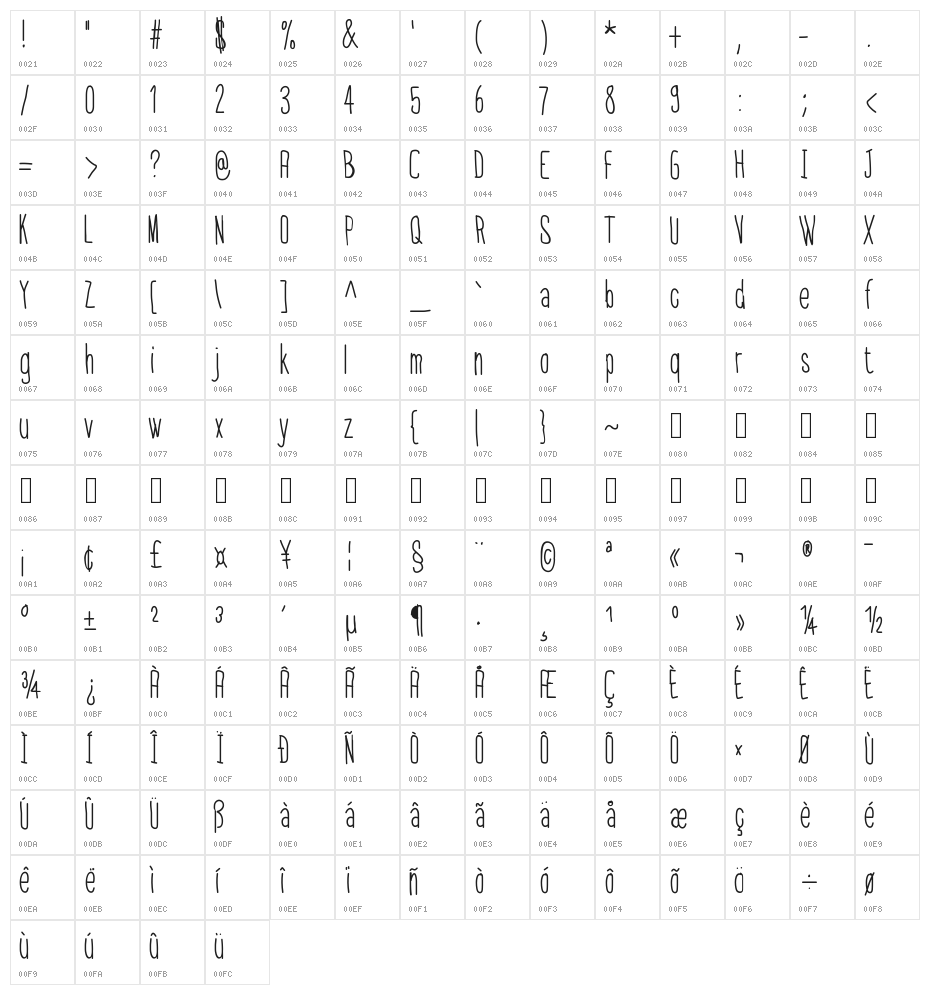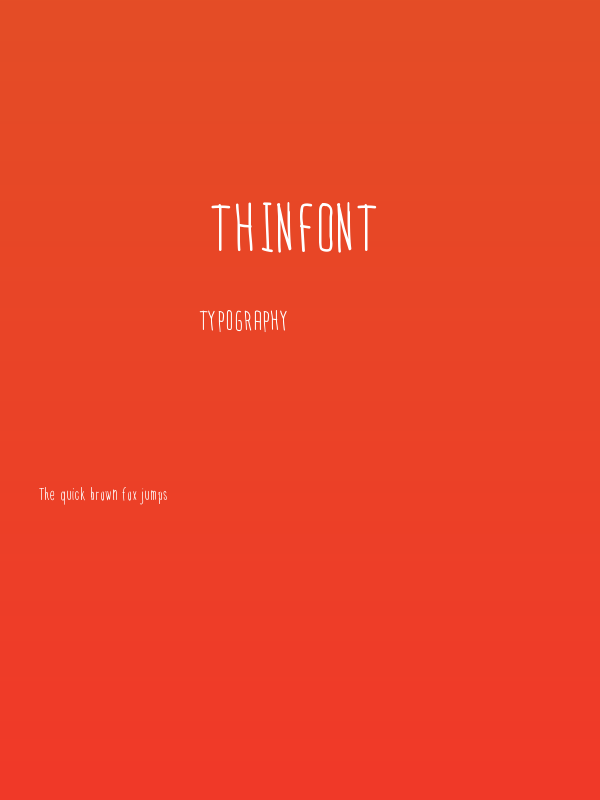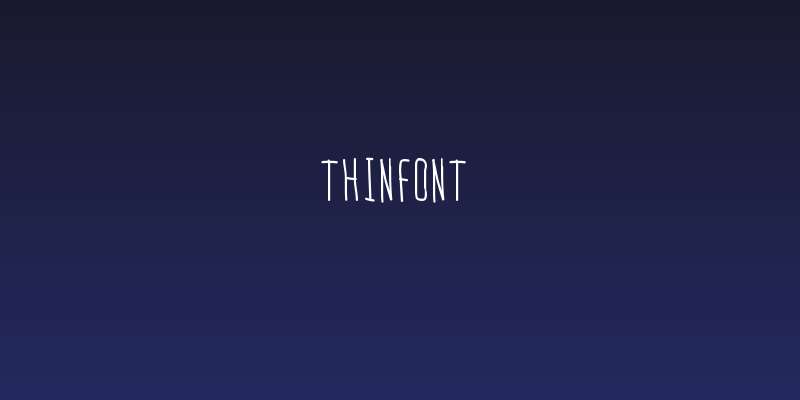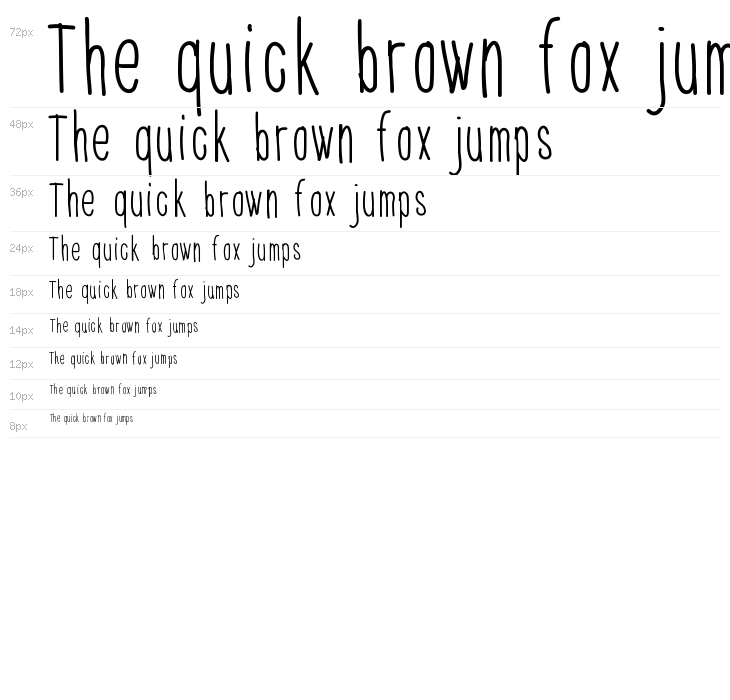
ThinFont Font
ThinFont Description
This font features a playful and casual handwritten style, characterized by its thin, elongated letterforms. The uppercase and lowercase letters maintain a consistent height, contributing to a uniform appearance. The strokes are smooth and slightly irregular, adding a personal touch to the overall design. The numerals and special characters follow the same style, ensuring cohesion across all glyphs. This font's informal and approachable nature makes it suitable for projects that require a friendly and relaxed aesthetic.
| Proposed Projects | Ideal for greeting cards, children's books, casual invitations, and personal branding. |